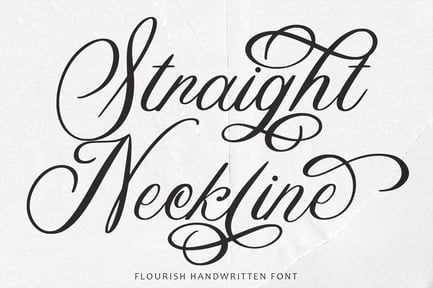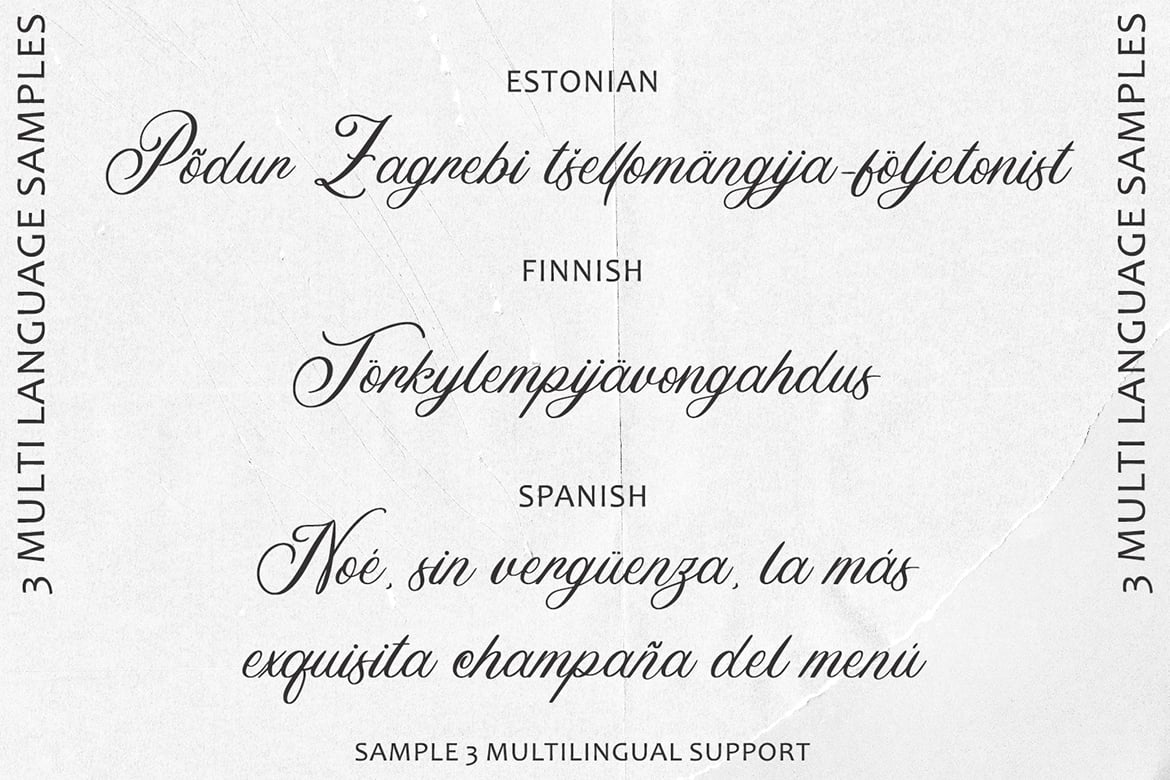
Straight Neckline – Flourish Handwritten Font
Overall, the “Straight Neckline” flourish handwritten font offers a perfect balance of elegance, charm, and readability. Its calligraphic inspiration, delicate flourishes, and handwritten aesthetic make it a standout choice for designers seeking to add a touch of sophistication and whimsy to their projects.